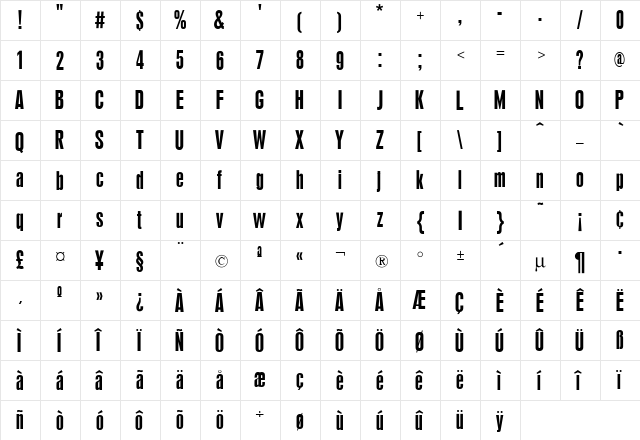
Hadrianbold Regular
Design Context for Hadrianbold Typeface
Hadrianbold is a composed and adaptable typeface that performs quietly and consistently across a wide range of design contexts. Its bold stroke weight gives it real presence on the page.
Pro Tip: Use Hadrianbold in both headline and body roles to test its range before committing to a single application.